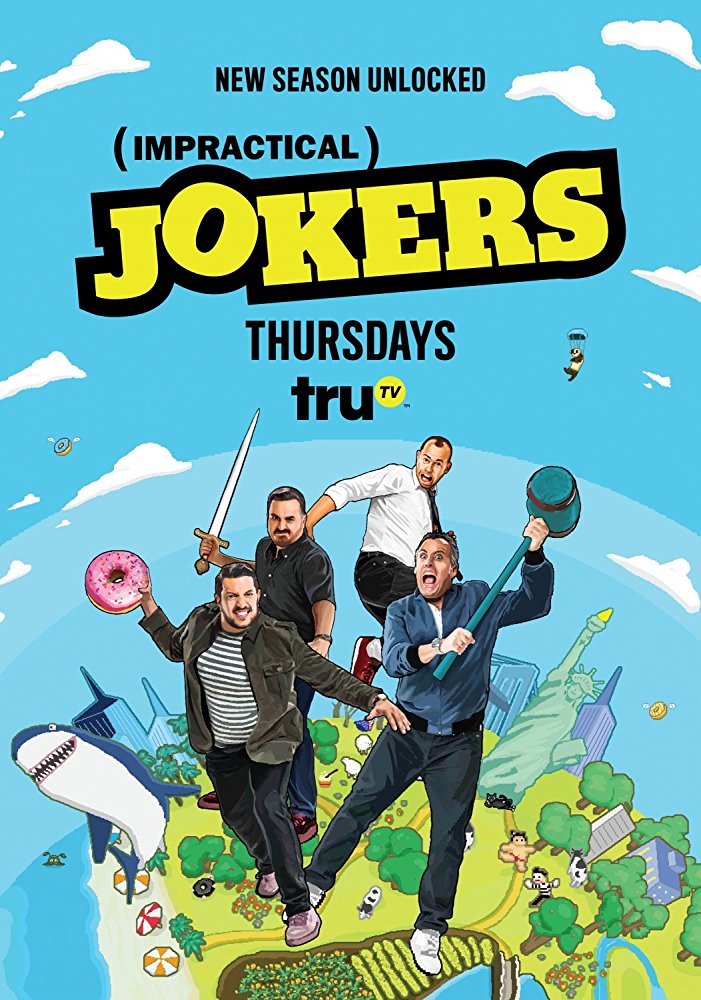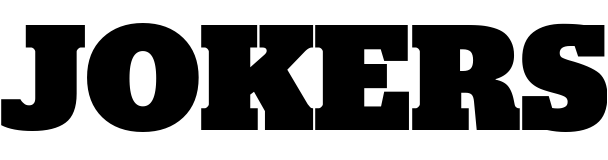
Impractical Jokers Font
Fonts in UseImpractical Jokers is a hidden camera prank show where four lifelong friends compete in hilarious challenges to embarrass each other in public. It first aired on TruTV in December 2011 and has since become one of the network's most popular shows.
The TV logo on the poster features the sans serif font ITC Franklin Gothic Heavy and a slab serif font similar to Stag Black. Stag is a family of slab serifs that includes Stag Sans, Stag Sans Rounded, Stag Dot, and Stag Stencil.